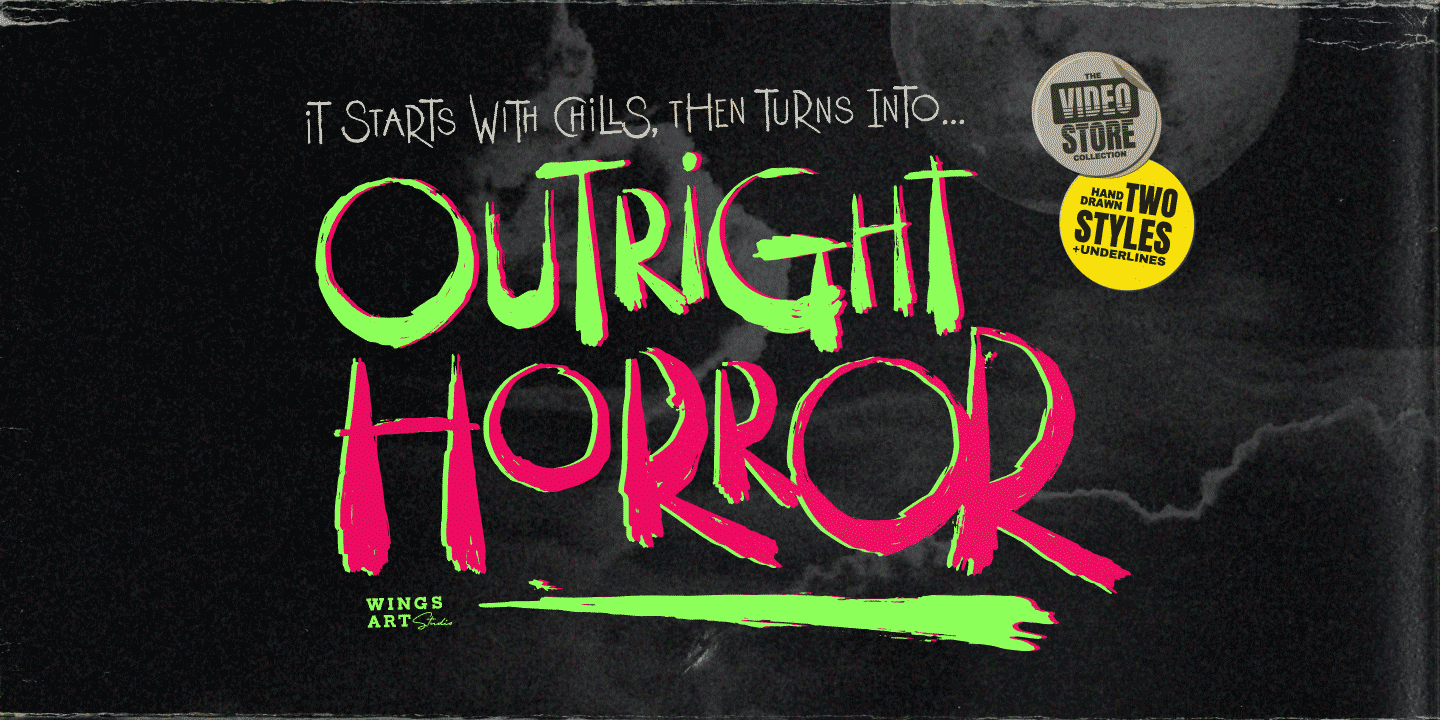
The Outright Horror Font excels in various design applications including horror movie posters, Halloween event promotions, scary book covers, gothic band merchandise, haunted attraction signage, dark video game interfaces, horror-themed websites, spooky party invitations, thriller novel typography, and supernatural entertainment branding that demands spine-chilling visual impact and atmospheric terror.
What makes the Outright Horror Font exciting is its masterful ability to evoke genuine fear and suspense through carefully crafted letterforms that embody the essence of classic horror aesthetics. This typeface captures the dark atmosphere of haunted mansions, mysterious graveyards, and supernatural encounters through distressed characters, ominous shapes, and unsettling visual elements that immediately communicate danger and mystery. The font's terrifying personality makes it perfect for entertainment properties and seasonal campaigns seeking to create authentic horror experiences that captivate and frighten audiences.
The Outright Horror Font family typically includes multiple distressed variations with different levels of decay and horror effects, often featuring alternate characters with blood splatter effects, cracked textures, and supernatural distortions. These family options may include specialized glyphs, decorative elements, and horror-themed symbols that enhance the frightening atmosphere and provide designers with comprehensive tools for creating genuinely scary typography.
Horror entertainment professionals and seasonal event marketers consistently select Outright Horror Font Free Download for projects requiring authentic fear-inducing typography that creates immediate emotional impact. This typeface delivers exceptional performance in horror marketing, Halloween campaigns, and supernatural entertainment where establishing scary atmosphere and capturing audience attention through fear is essential for success. The font's distinctive horror character makes it instantly recognizable within the genre. Download Outright Horror Font Free Download today to access this terrifying typeface that transforms ordinary text into spine-chilling experiences, elevating your horror projects with typography that genuinely frightens and captivates audiences seeking authentic scares.